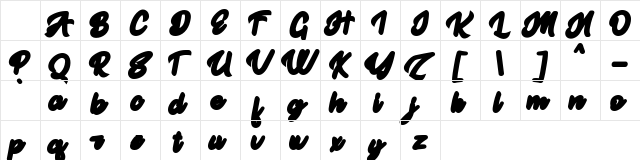
the Hartes Personal Use is a composed and adaptable typeface that performs quietly and consistently across a wide range of design contexts.
Pro Tip: Use the Hartes Personal Use in both headline and body roles to test its range before committing to a single application.